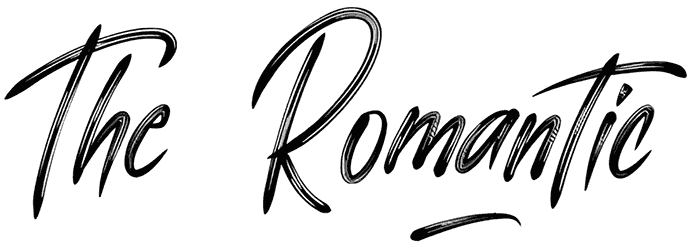
The Romantic Font
Creating a modern and innovative design that shows your creativity in combination with energetic and artistic words can attract many viewers. As a brush font, The Romantic font consists of casual letters that could be a perfect item for many titles. House this romantic font on your intended projects like postcards, invitations, signs, and so on, and give them a captivating mood.